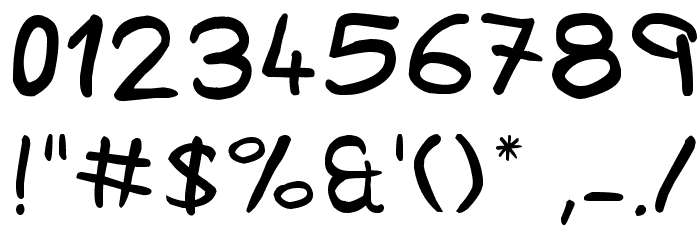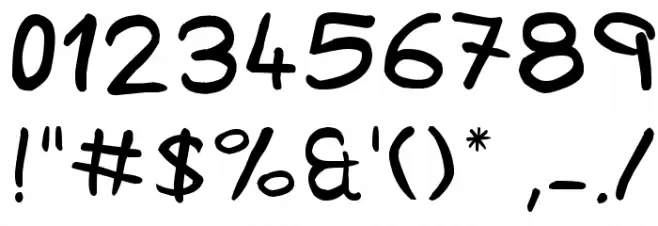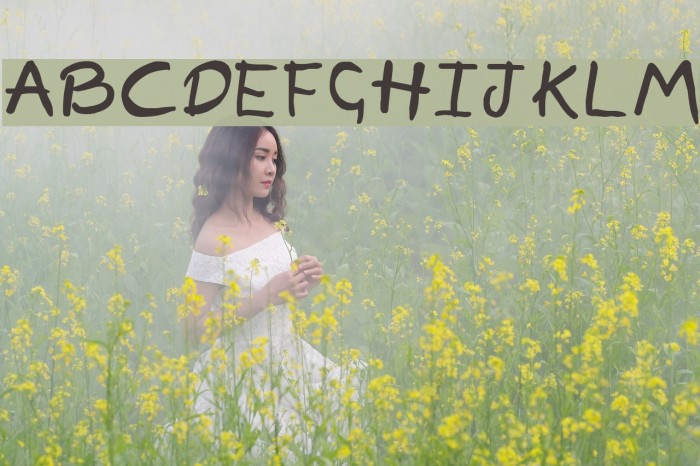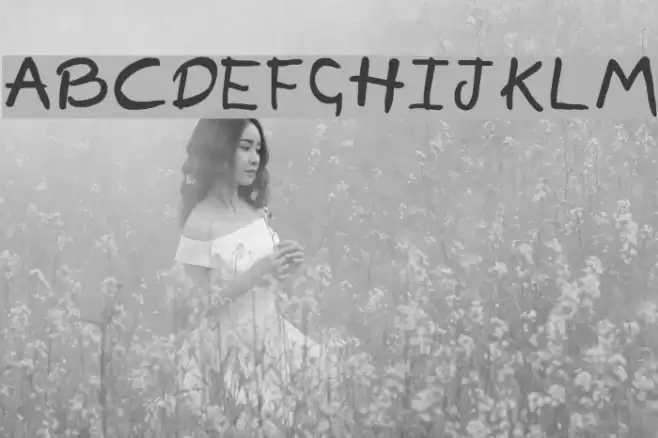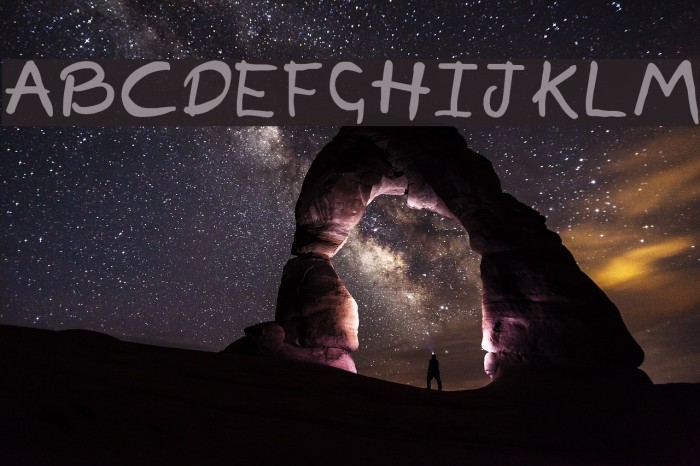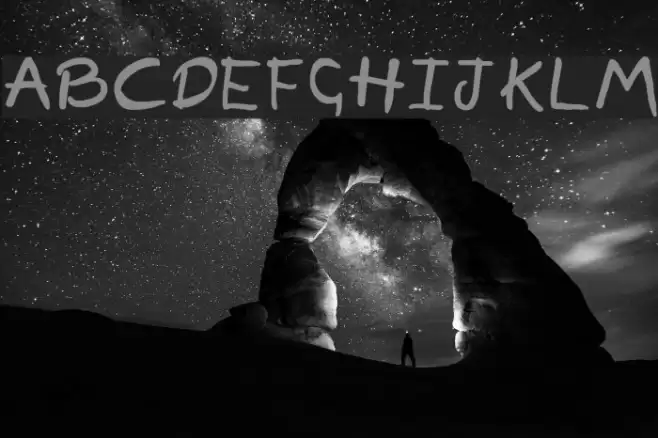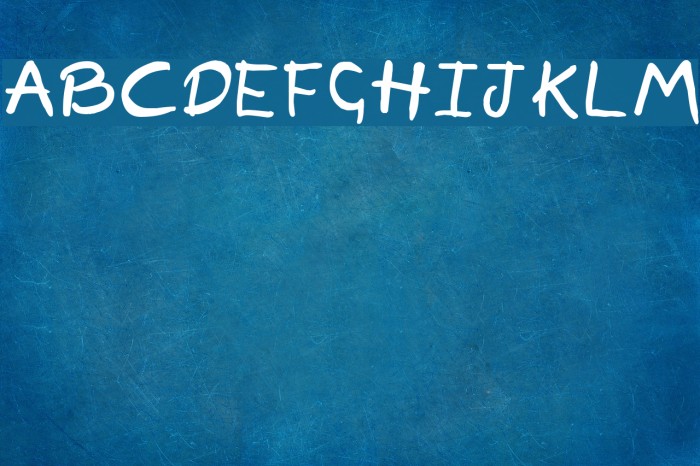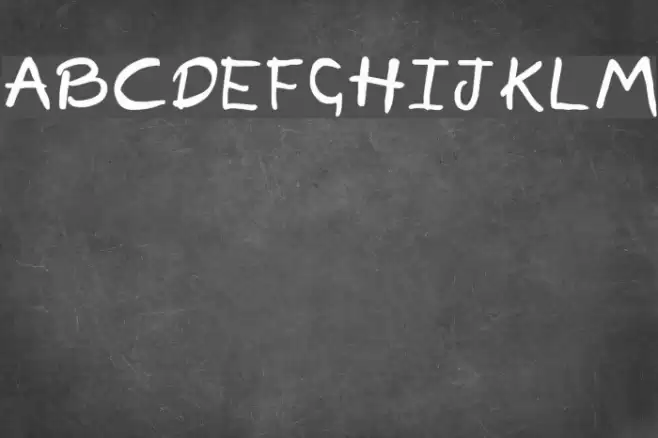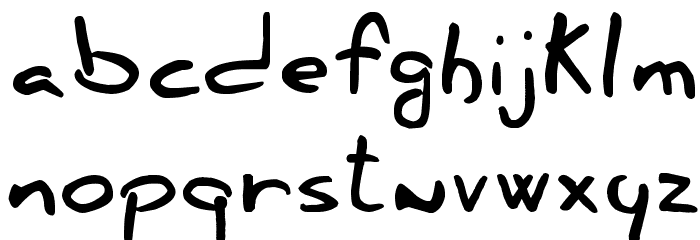
Nonciclopedia by Sabaku Font
Nonciclopedia by Sabaku Description
This font features a playful and informal handwritten style, characterized by its irregular and dynamic strokes. The letters exhibit a casual, almost whimsical appearance, with varying thicknesses that add to its charm. The uppercase and lowercase letters maintain a consistent flow, while the numerals and special characters complement the overall aesthetic. The font's unique personality makes it suitable for projects that require a touch of creativity and individuality.
| Overall Style | Casual, Whimsical |
| Proposed Projects | Ideal for greeting cards, children's books, casual branding, and creative posters. |